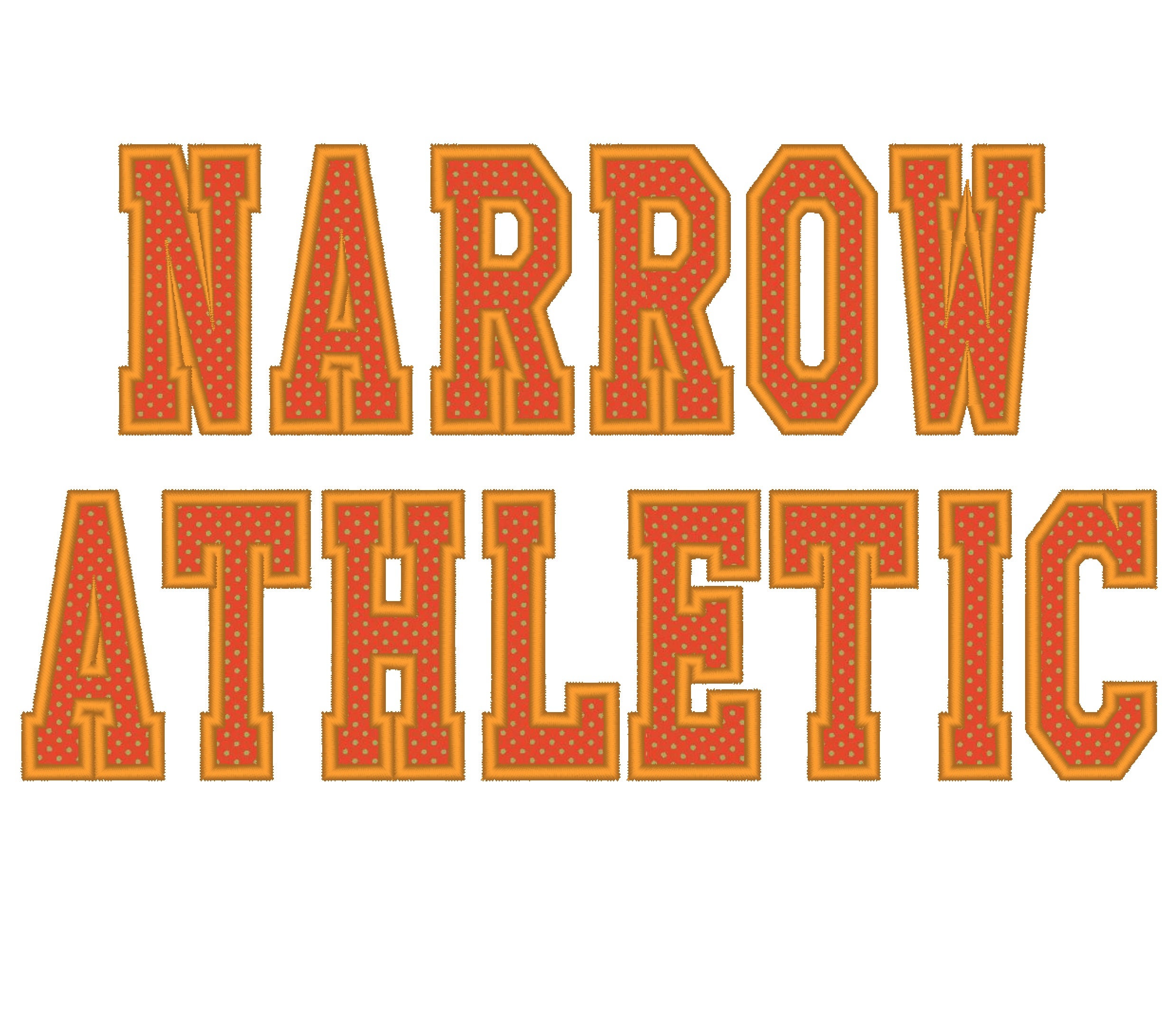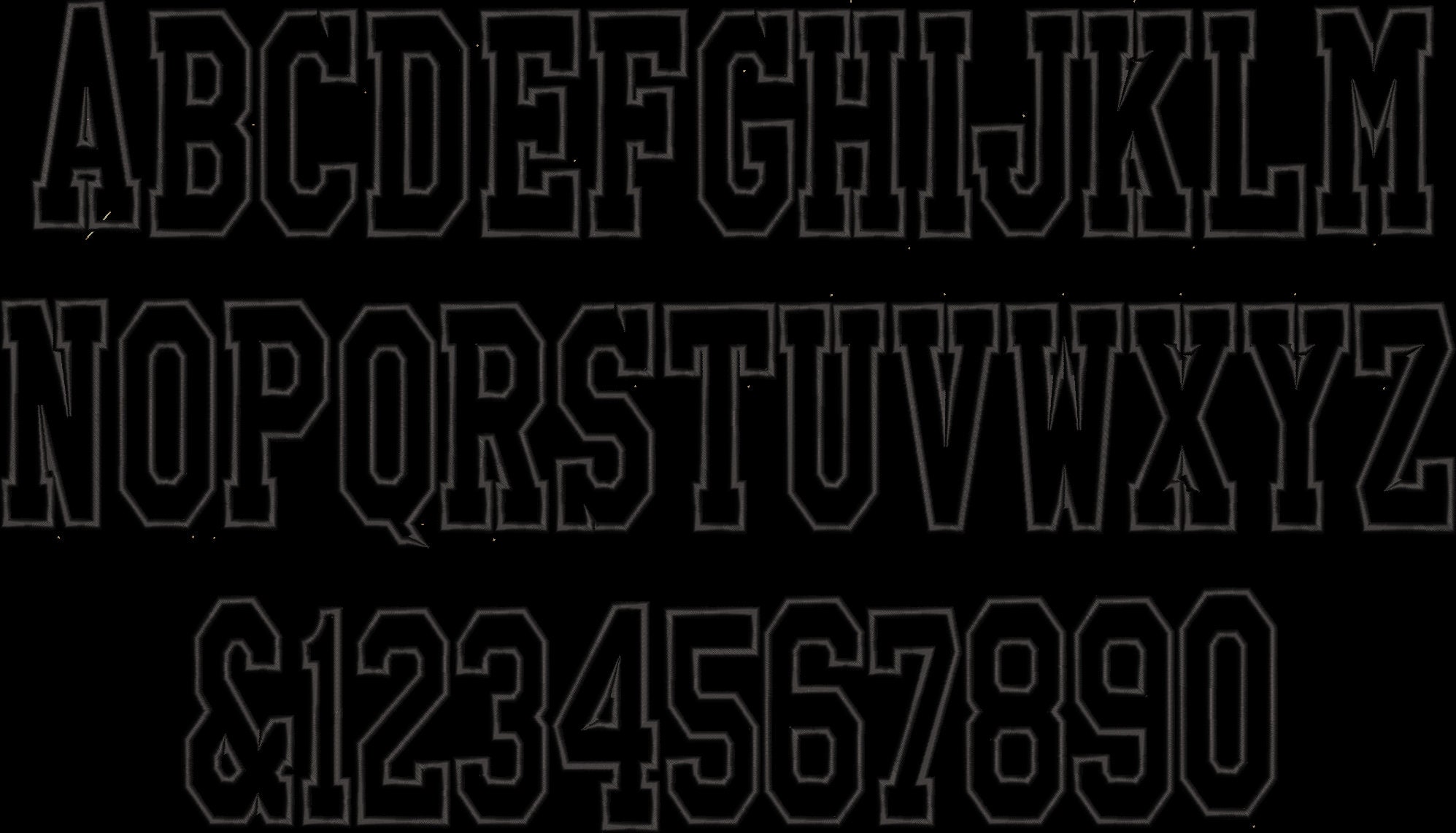
Thin Narrow FONT applique Athletic Sport High School Team Players alphabet letters machine embroidery designs in many sizes, BX included
The font has a nice wide satin stitch outline.
This is a font of capital letters and numbers, including ampersand "&"